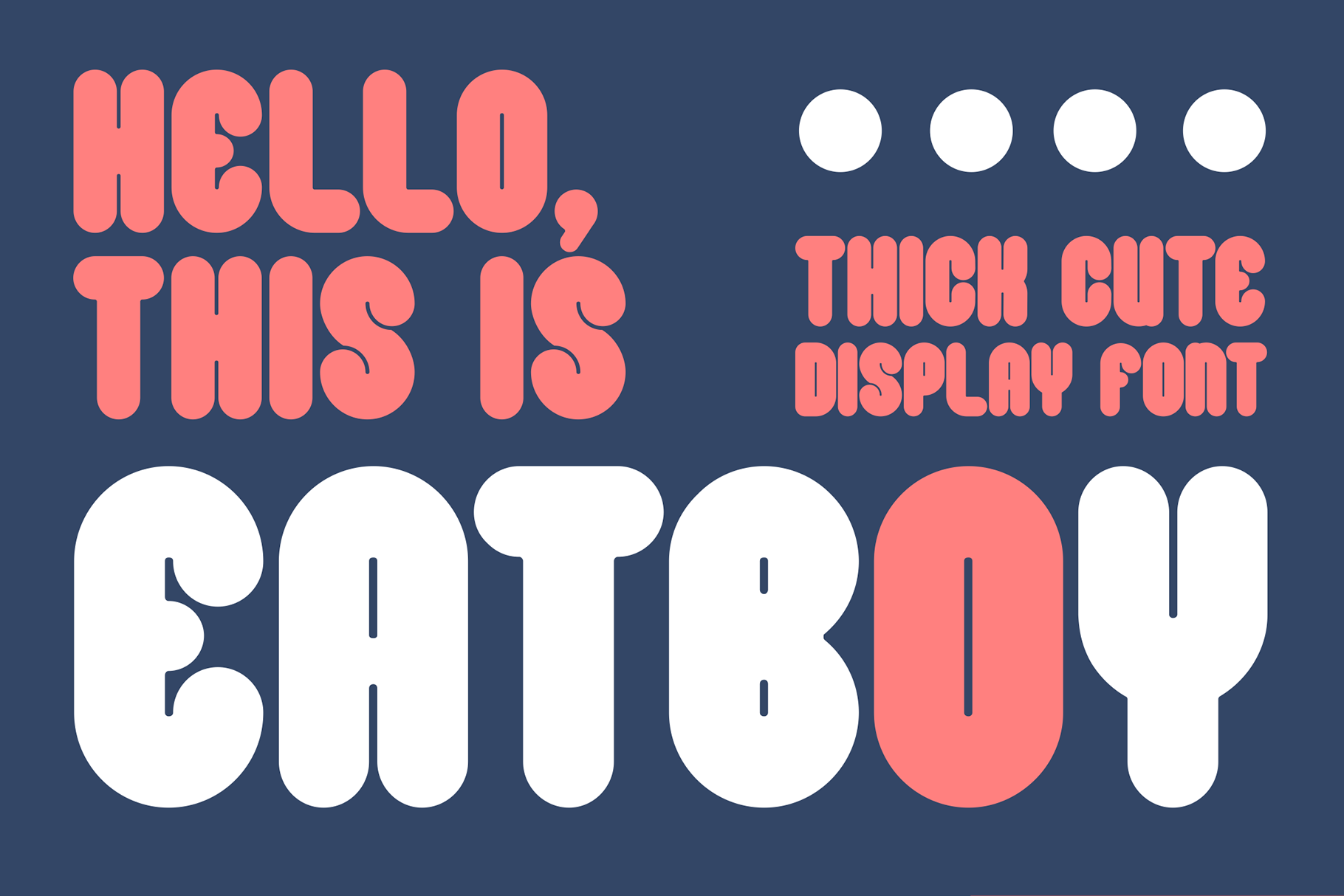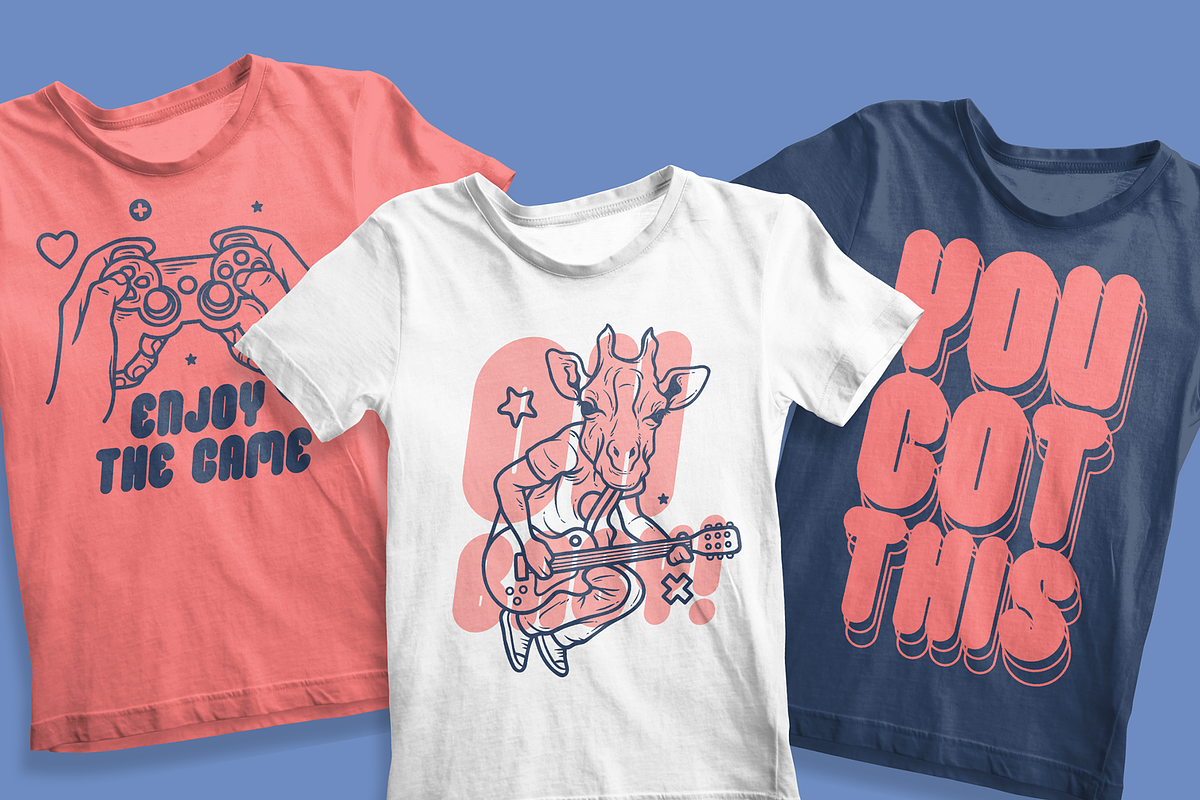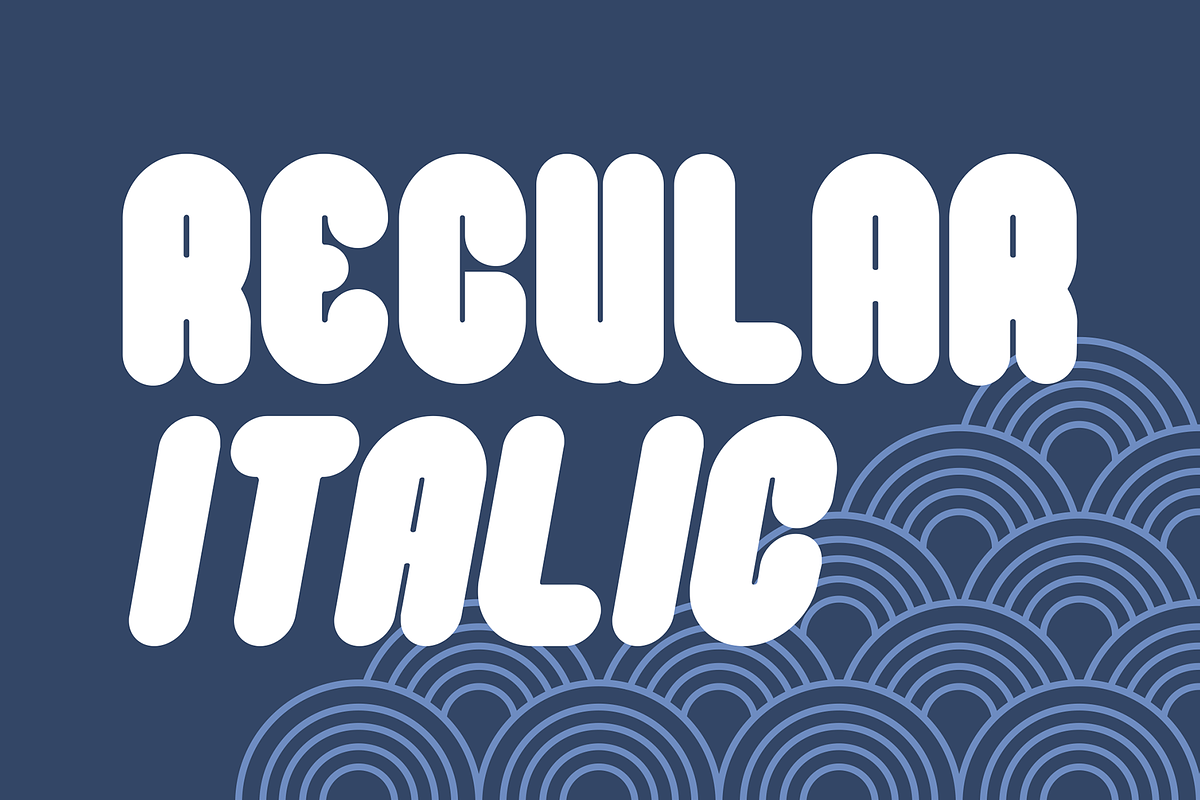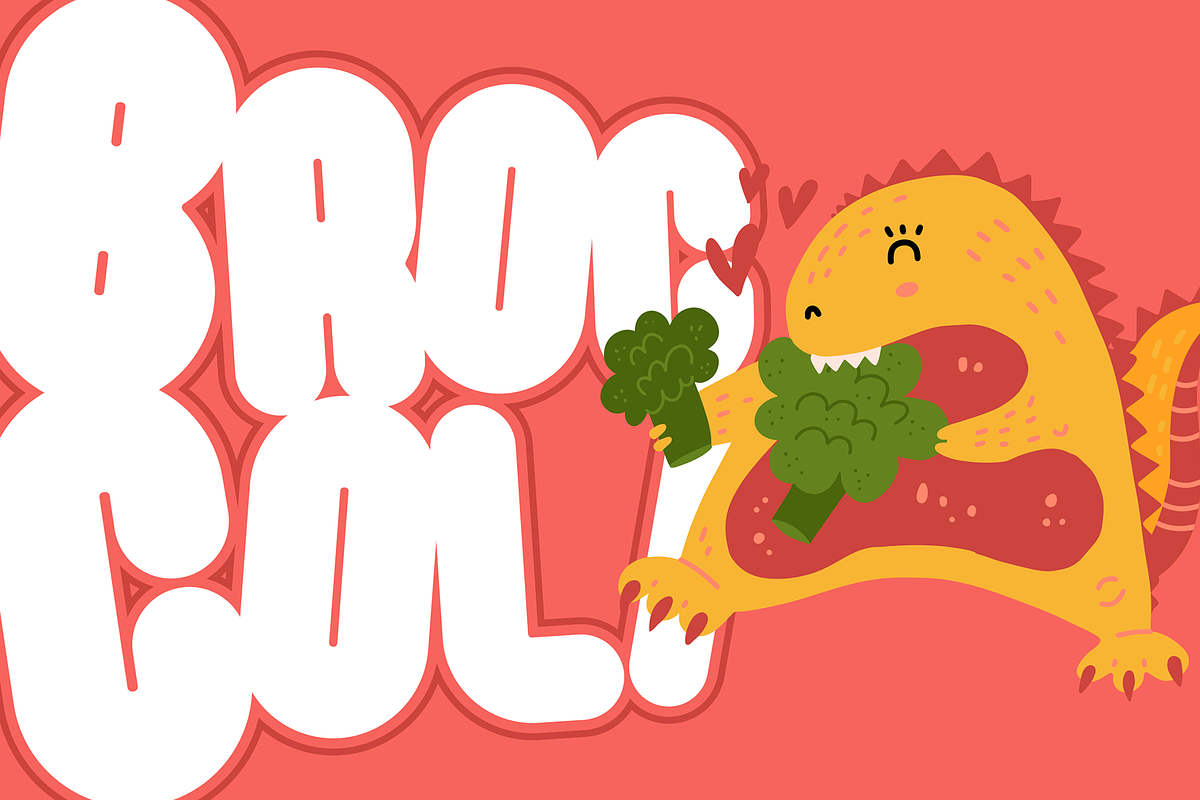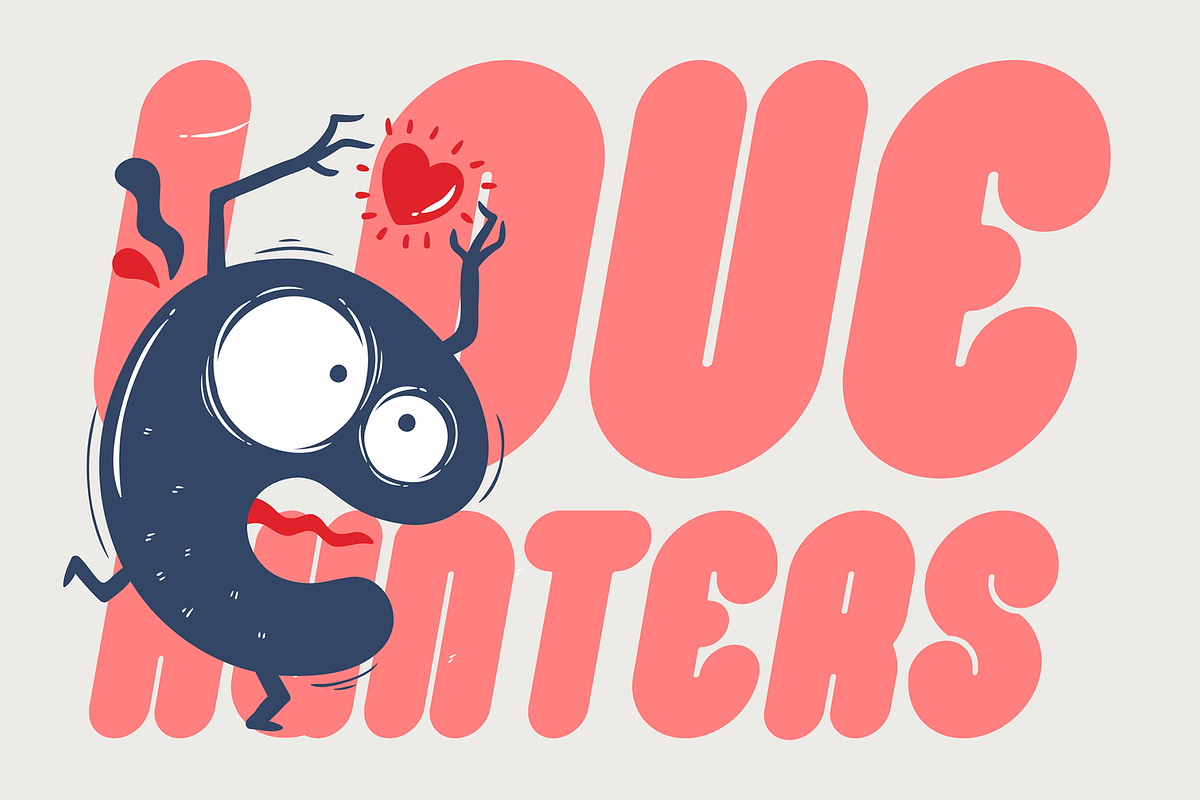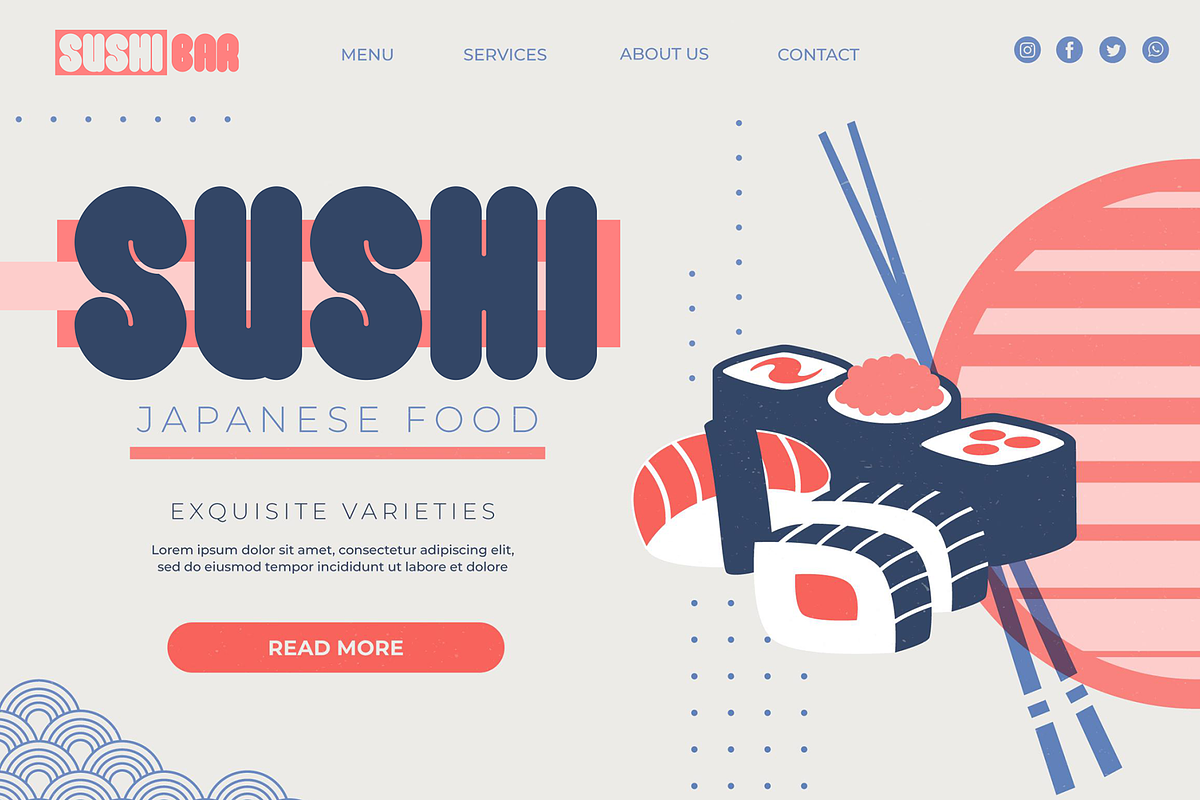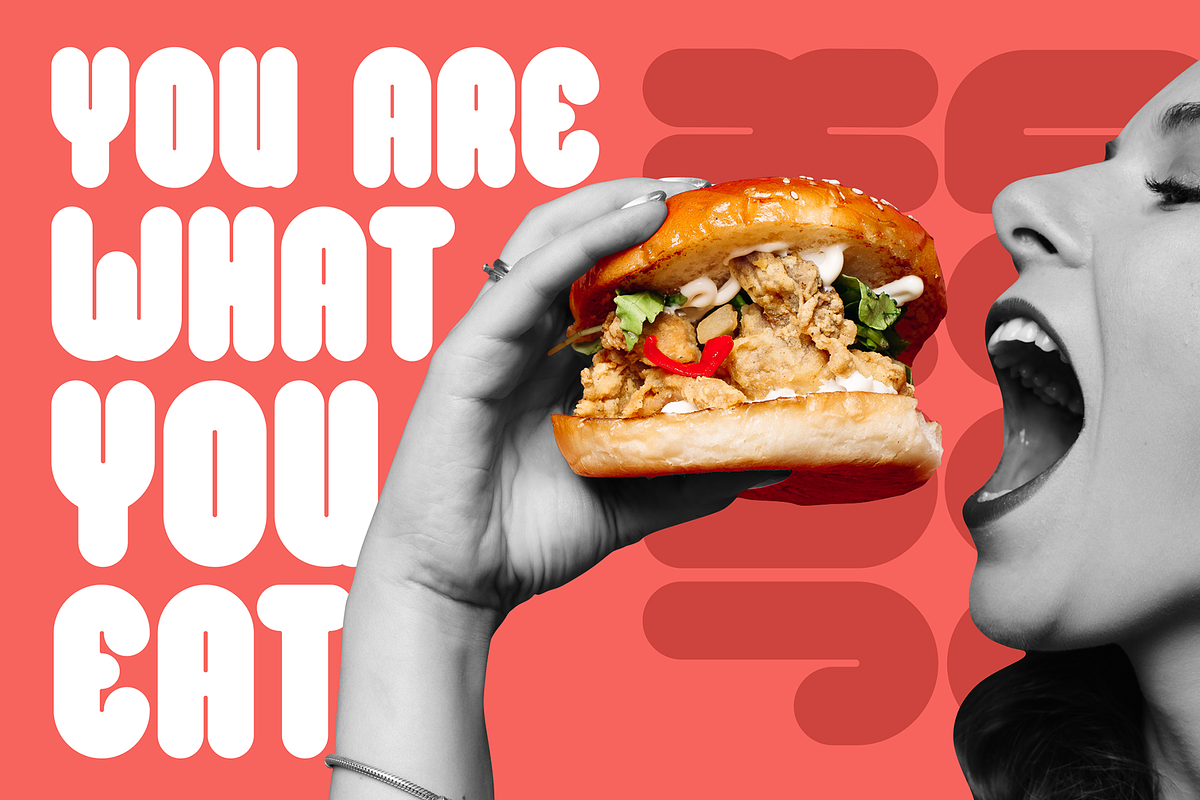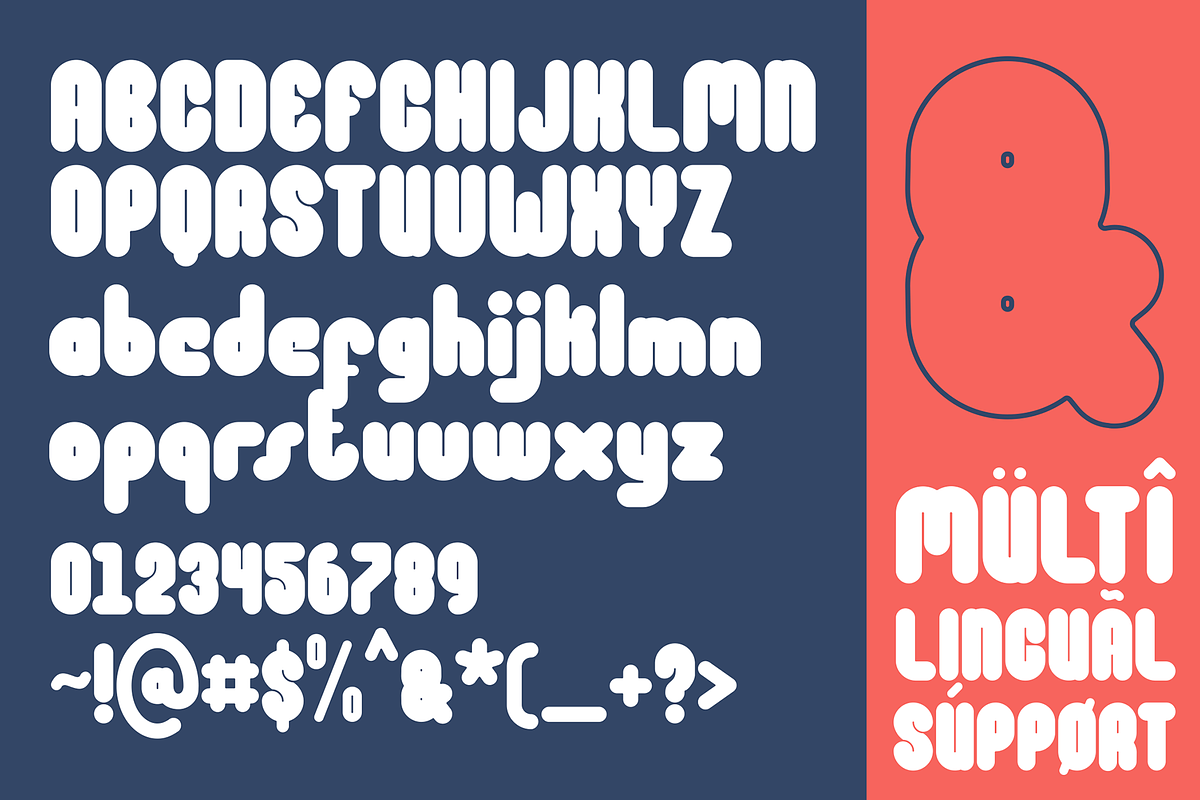
Eatboy - Fun Display Font
Say hello to Eatboy font. Made with love and joy. Comic look, Bold, Thick, so it will make your design more beautiful, cute, fun, and colorful. It comes With two awesome styles.